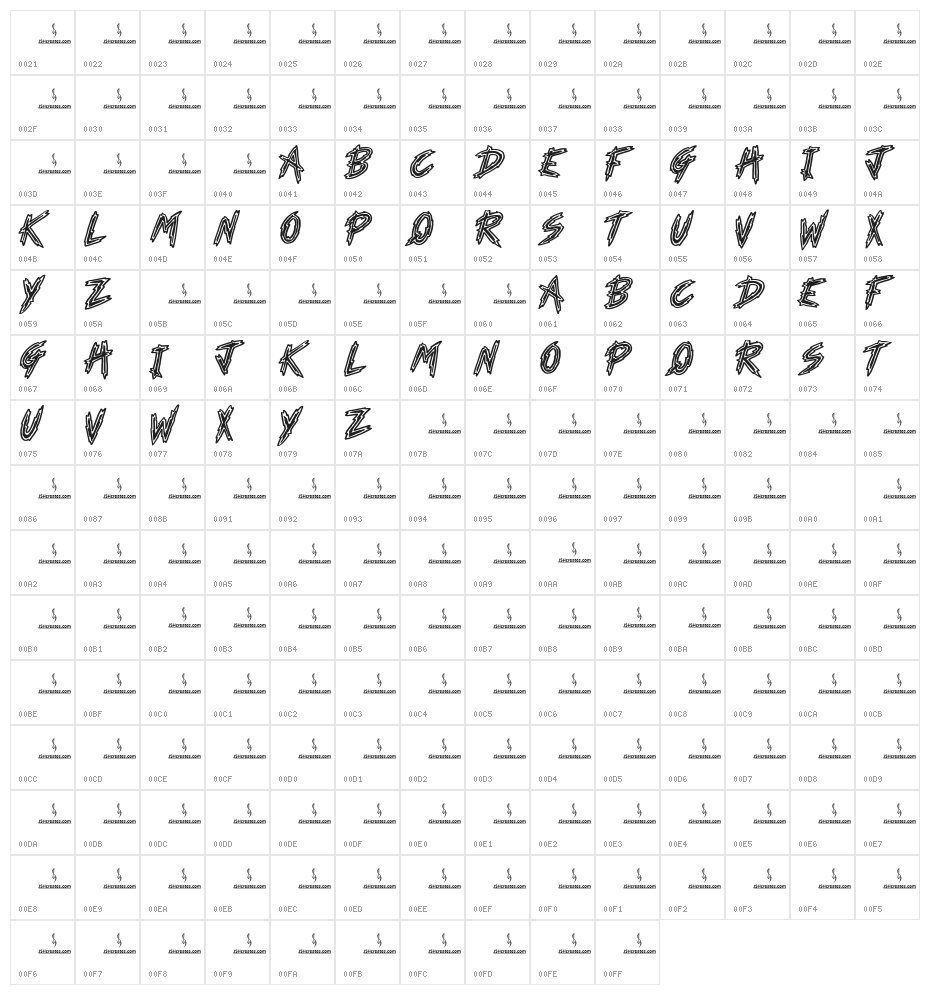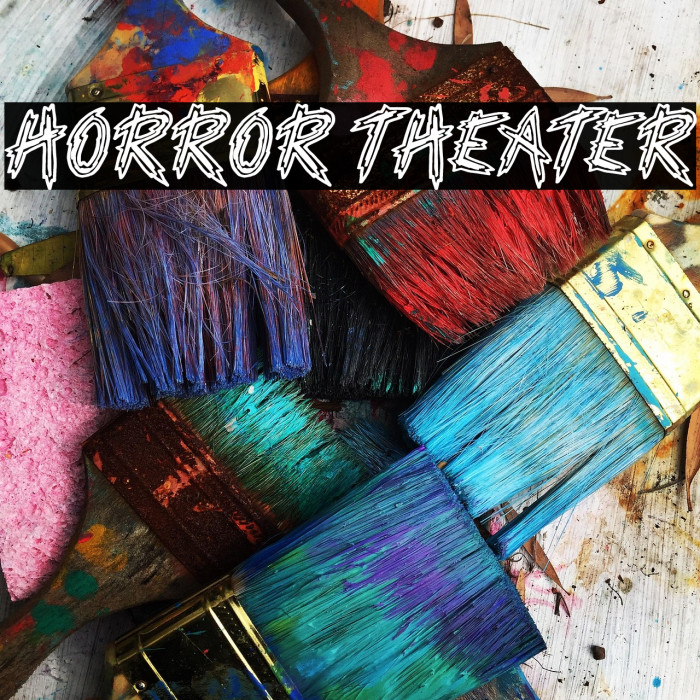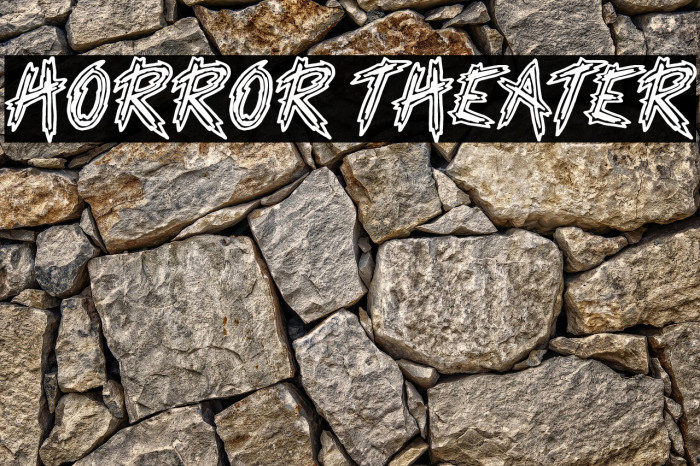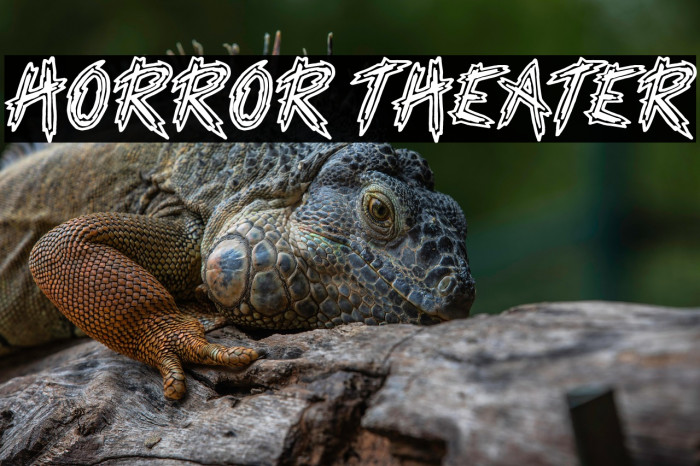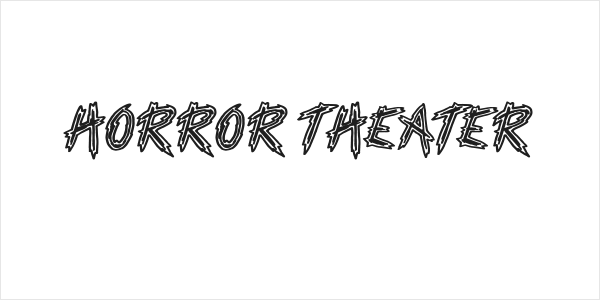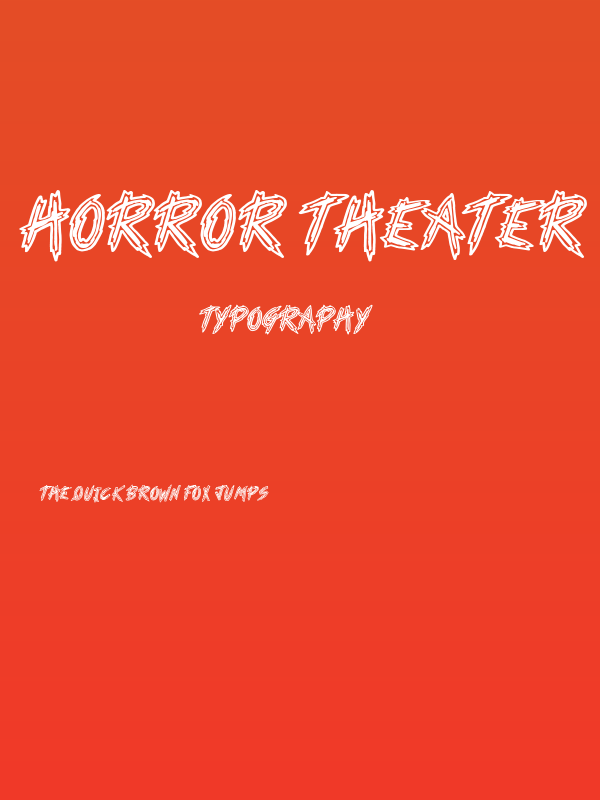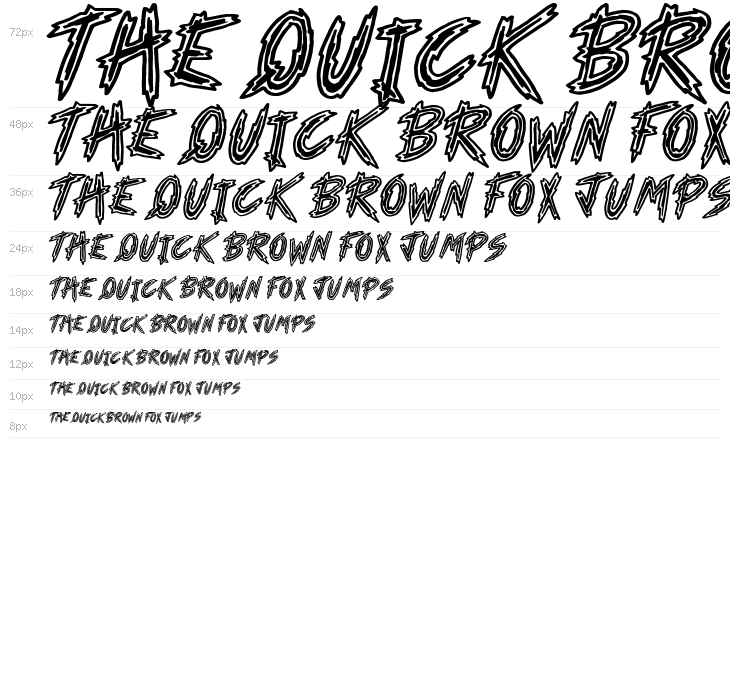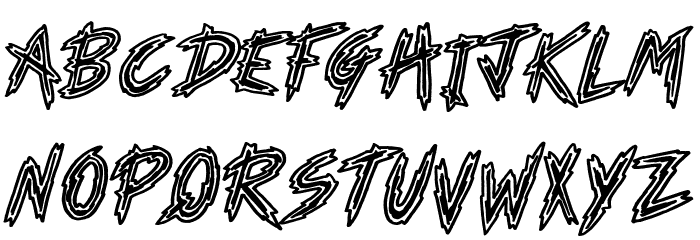
Horror Theater Font
Horror Theater Description
This font features a jagged, electrifying design that evokes a sense of horror and excitement. The characters are bold and dynamic, with sharp edges and irregular strokes that create a sense of movement and intensity. The style is reminiscent of classic horror movie posters, making it perfect for projects that require a dramatic and eye-catching typeface. The uppercase letters are particularly striking, with their exaggerated forms and unique flair. The font's overall appearance is both chaotic and controlled, offering a perfect balance for creative designs.